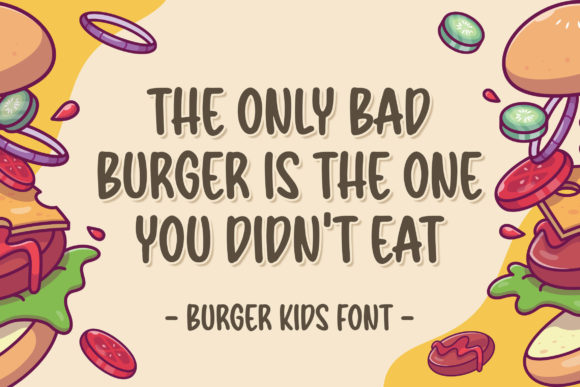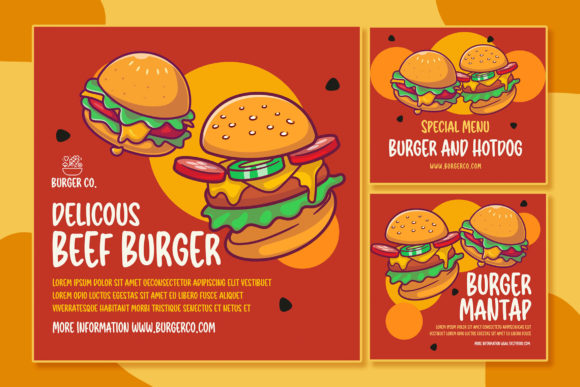
Burger Kids Font
Are you looking for a vintage playful font? Do you want to create something that stands out and inspires creativity, imagination, and endless fun? Wait no more, here’s the best choice!Burger Kids a Delicious Display Font Burger Kids is inspired by a bouncy calligraphy style. This font is perfect for a design that makes it more attractive and playful. Made with a very good level of aesthetics, this font is suitable for book covers, posters, packaging, merchandise, logotypes, and more.